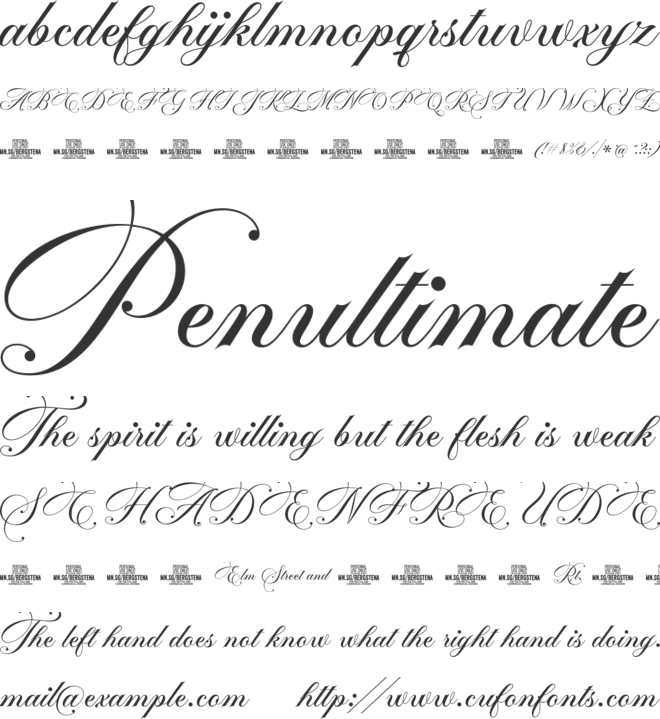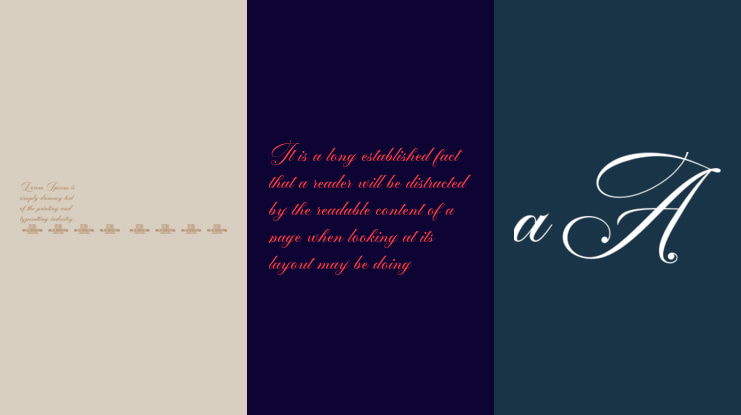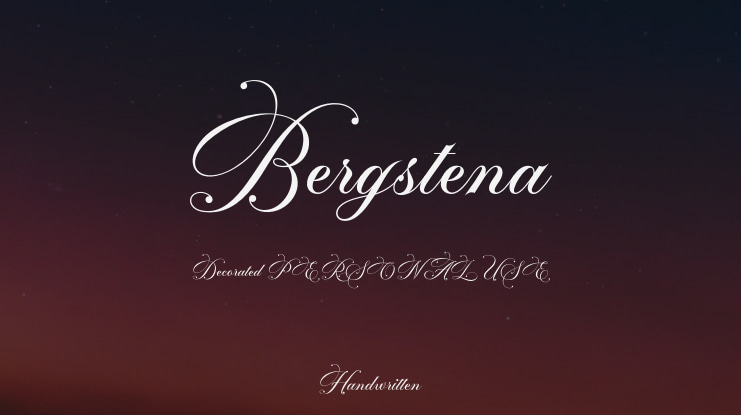
Bergstena Decorated PERSONAL USE Font Family
NOTE: This font is for PERSONAL USE ONLY!To purchase a commercial license, visit:https://www.mansgreback.com/product/bergstena-scriptBergstena Script is a luxurious and decorative calligraphy font with a distinctively elegant attitude.The uppercase letters are finely sculpted with ornate loops and sweeping curves, capturing the essence of formal penmanship and ornamental signage from the past. Meanwhile, the lowercase set flows with smooth rhythm, retaining a soft, legible structure.Each character feels carefully crafted, as if pulled from the nib of a master calligraphers pen.For questions, please visit https://mansgreback.com/faq